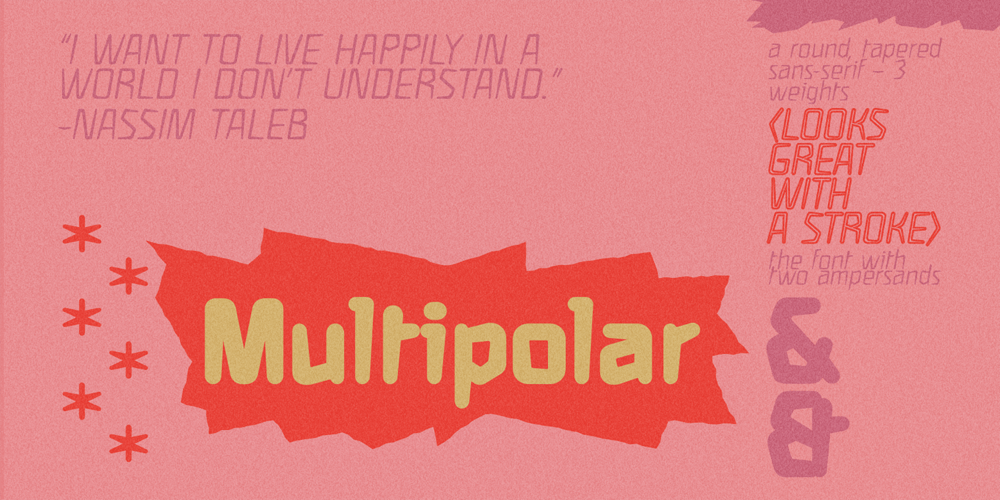
Multipolar Font Family was designed by Caleb East and published by MYSTERIAN. Multipolar contains 6 styles and family package options. This typeface was designed as the house style by and for design studio Mysterian. It was drafted and completed during most of 2020. The intention of the design of the forms was to develop a unique signification in the mind, but one that could have potential relevant associations such as with sci-fi. The solution, brought along with a fascination with this rarely seen pattern in type, was to taper round forms. The name ‘Multipolar’ was inspired by the term used by game theorist Daniel Schmachtenberger, which is a kind of event that seemed relevant to the Covid-period in which the font was made. Alternate characters include: Two Ampersands Upper and Lowercase PI Upper and Lowercase Eszett Latin Characters